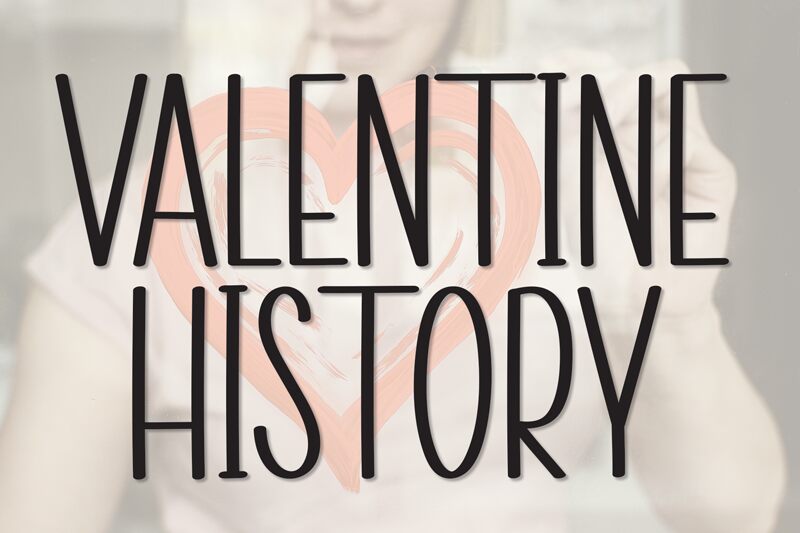
Valentine History
Valentine History, crafted by Scratchones, embodies the charm of handwritten correspondence with its personable and intimate strokes. This font captivates with a condensed style that evokes nostalgic notes of penned love letters and historical manuscripts. Its aesthetic seamlessly blends elegance with a sense of personal touch, making it an ideal choice for projects that require a dash of romance or an air of authenticity.
Perfect for invitations, branding, or editorial design where character and warmth are paramount, Valentine History invites readers into a world where every letter tells a story. Its inviting curves and narrow profile make it not just a typeface but an experience—one that resonates with the artistry of handcrafted expression.